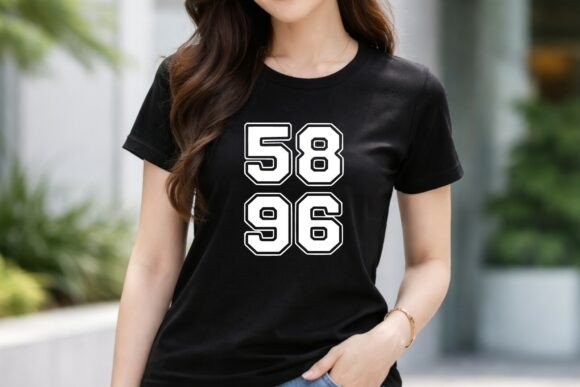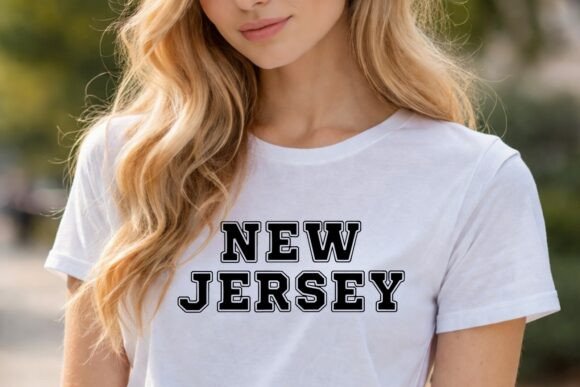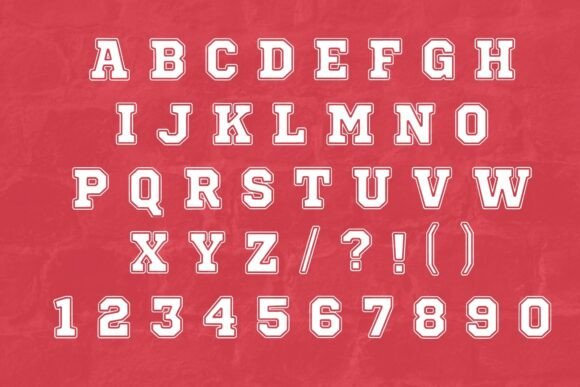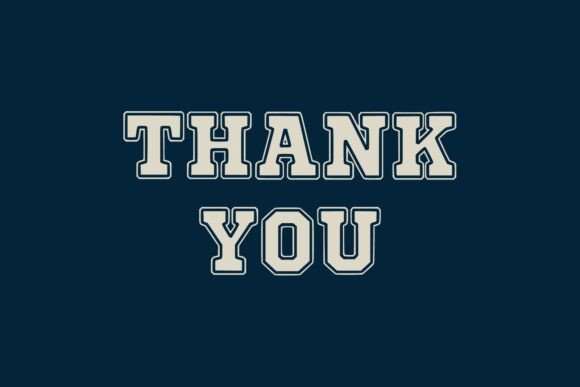
Introduction to School College Font
As a designer, have you ever been tasked with creating a logo for a school team or college athletic program? The pressure to deliver a high-quality design that captures the spirit of the institution can be daunting, but with the right tools, you can create a design that truly stands out. For those looking to add a touch of classic athletic style to their next creative project, we’re excited to introduce you to the School College Font.
This versatile font is perfect for designers seeking a bold and dynamic display font that exudes professionalism and a sporty vibe. With its clean outlines and structured design, School College Font ensures excellent readability, making it an ideal choice for a wide range of applications, from team logos to merchandise and apparel.
Key Features of School College Font
- High-quality design: School College Font is a meticulously crafted design resource, perfect for creative projects that demand attention to detail.
- Unique characteristics: The School College Font features a unique blend of modern and classic elements, making it an excellent choice for designers seeking a distinctive look.
Honest Review: School College Font
I recently had the opportunity to work with the School College Font, and I must say it’s a great addition to any design project. This font is perfect for creating high-quality materials for schools and colleges, such as brochures, posters, and websites.
- ✨ The font is very easy to use, even for designers with limited experience. It’s also highly customizable, making it ideal for creative projects.
However, I do have a few minor issues with the font. ⚠️ The font family is not as extensive as I would have liked, which can limit its use in certain projects.
Overall, I’m very impressed with the School College Font. It’s a solid choice for designers looking to create high-quality materials for schools and colleges. While it may have some limitations, it’s a great free design resource that’s definitely worth checking out.
The School College Font is ideal for educational and academic projects, such as creating presentations, posters, and flyers. It’s also a great design resource for anyone looking for a free download that exudes a sense of professionalism and sophistication.